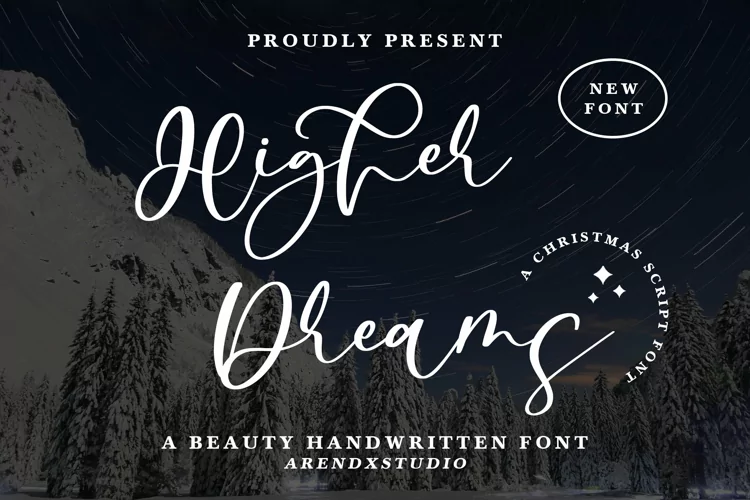
Higher Dreams Font
Higher Dreams
Higher Dreams is a lovely script font featuring charming, playful characters that seem to dance along the baseline. Add this font to your most creative ideas, and notice how it makes them stand out!